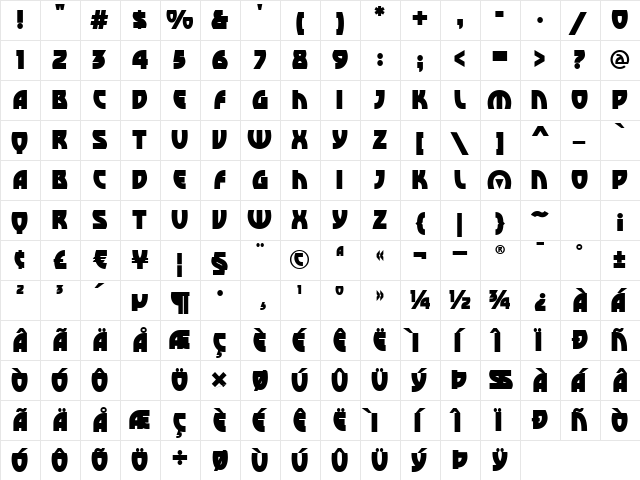
Monte Casino NF Ultra Bold Regular
Design Context for Monte Casino NF Ultra Bold Typeface
Monte Casino NF Ultra Bold offers clean, dependable letterforms without strong stylistic allegiance, making it a practical choice for designers who need flexibility. Its bold stroke weight gives it real presence on the page.